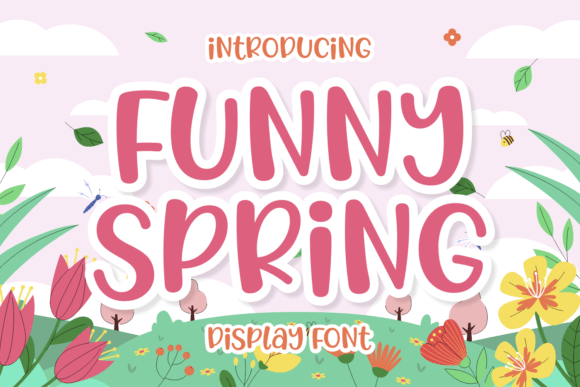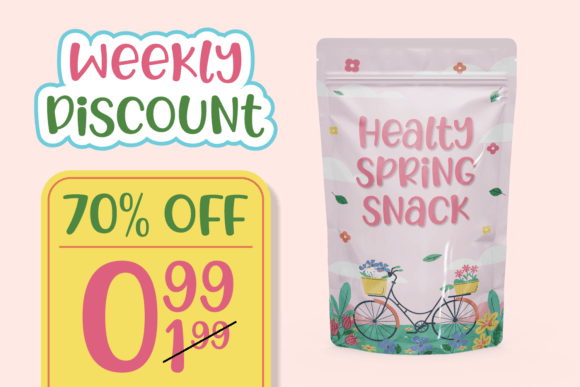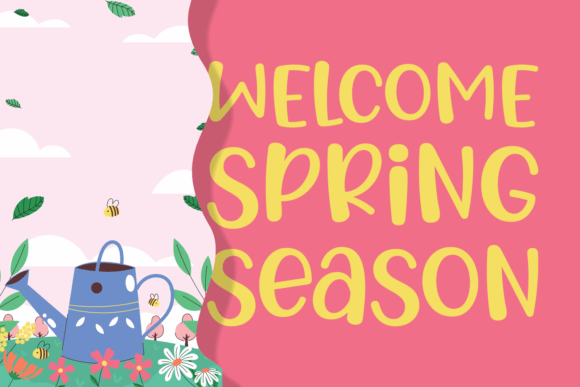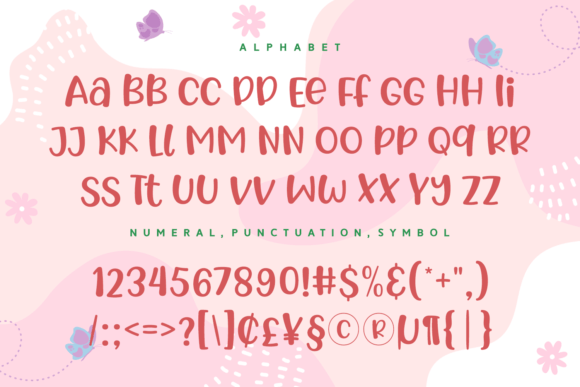
Funny Spring Font
About the Funny Spring Font
The Funny Spring Font is here to transform your projects with its distinctive character and style. Funny Spring is a cute display font with a friendly touch. This lovely font is designed to make a bold visual statement and grab attention. Unlike text fonts, which are optimized for readability in paragraphs and body text, display fonts are intended for use in larger sizes and shorter bursts of text, such as headlines, titles, logos, posters, and signage. You can use Funny Spring font for a wide range of applications, including branding, editorial design, packaging, advertising, and digital media.
Funny Spring Font Usage Examples
Funny Spring Font Example